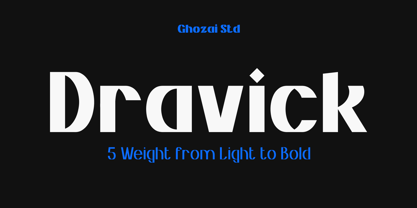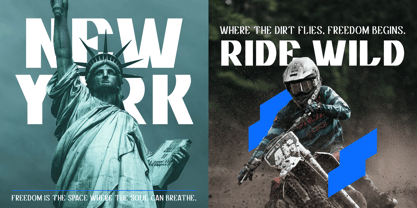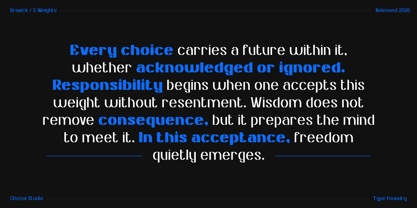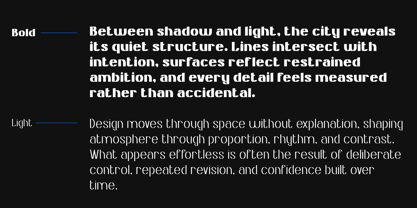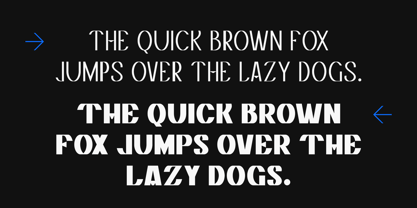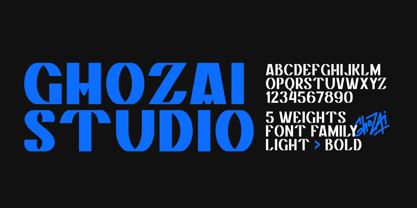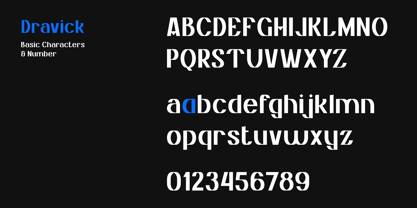
Dravick
by Ghozai Studio
The Dravick Font Family was designed by Manzur Ghozaali and published by Ghozai Studio. Dravick contains 5 styles and family package options. More about this family
Dravick is a distinctive font inspired by letters that appear to be cut at both the top and bottom, creating a unique visual aesthetic. Its design showcases a harmonious blend of bold, thick, and thin lines, resulting in dynamic typography that captures attention. With a wide range of variations, from light to bold, Dravick offers exceptional versatility, making it an ideal choice for various design applications such as posters, headlines, logos, and branding materials. This font is perfect for projects that require a modern and eye catching appeal, ensuring your designs stand out. Enhance your branding, web design, and editorial projects with Dravick's striking features and contemporary style, making it a go-to choice for designers seeking to make a lasting impression.
Designers: Manzur Ghozaali
Foundry: Ghozai Studio